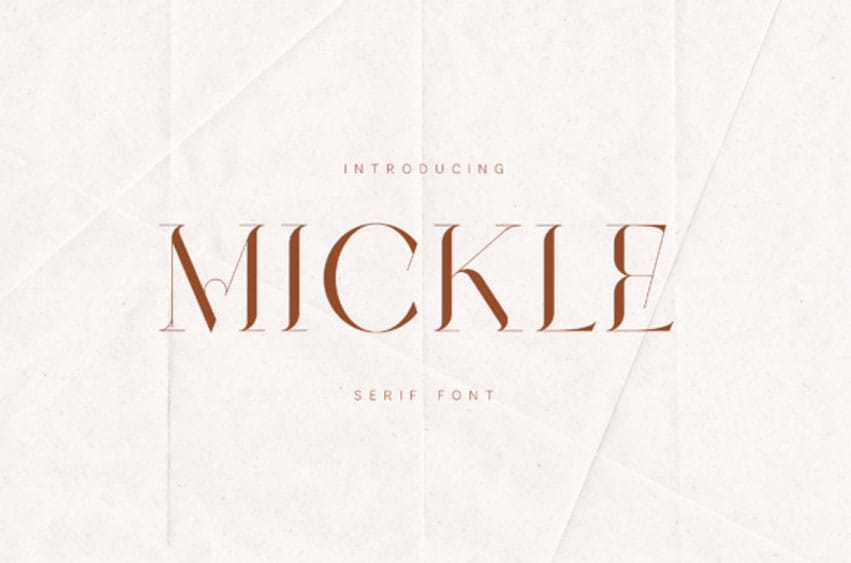
Mickle Font is an elegant high-contrast serif font crafted for refined, modern design. With its delicate strokes, sharp terminals, and graceful curves, it brings a sophisticated and luxurious tone to any composition.
The typeface balances classic serif influence with contemporary minimalism. Thin hairlines meet strong verticals, creating a striking contrast that feels both timeless and fashion-forward.
Mickle is designed to shine in high-end visual environments, making it perfect for:
• fashion editorials
• luxury branding
• beauty packaging
• magazine layouts
• logo design
• invitations & stationery
• social media aesthetics
• high-end marketing visuals